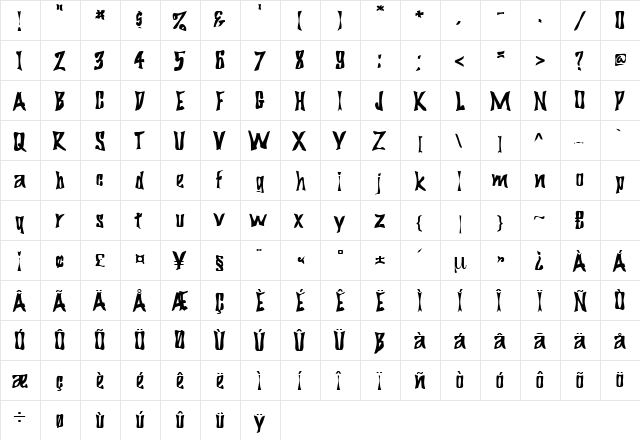
Tundra Regular
Design Context for Tundra Typeface
Tundra is a composed and adaptable typeface that performs quietly and consistently across a wide range of design contexts.